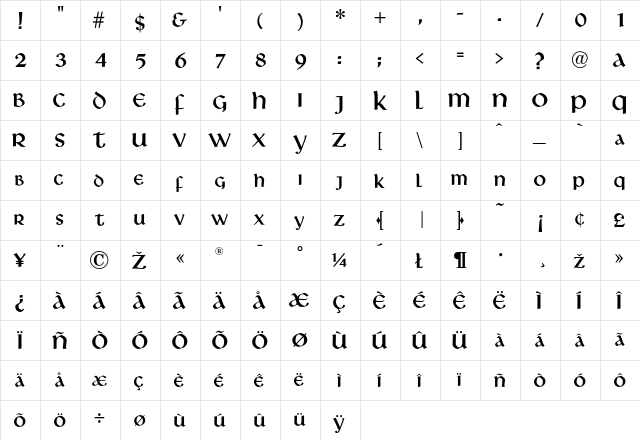
Libra Regular
Design Context for Libra Typeface
Libra is a composed and adaptable typeface that performs quietly and consistently across a wide range of design contexts.